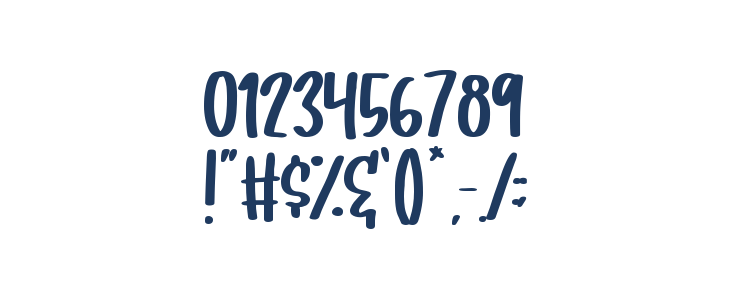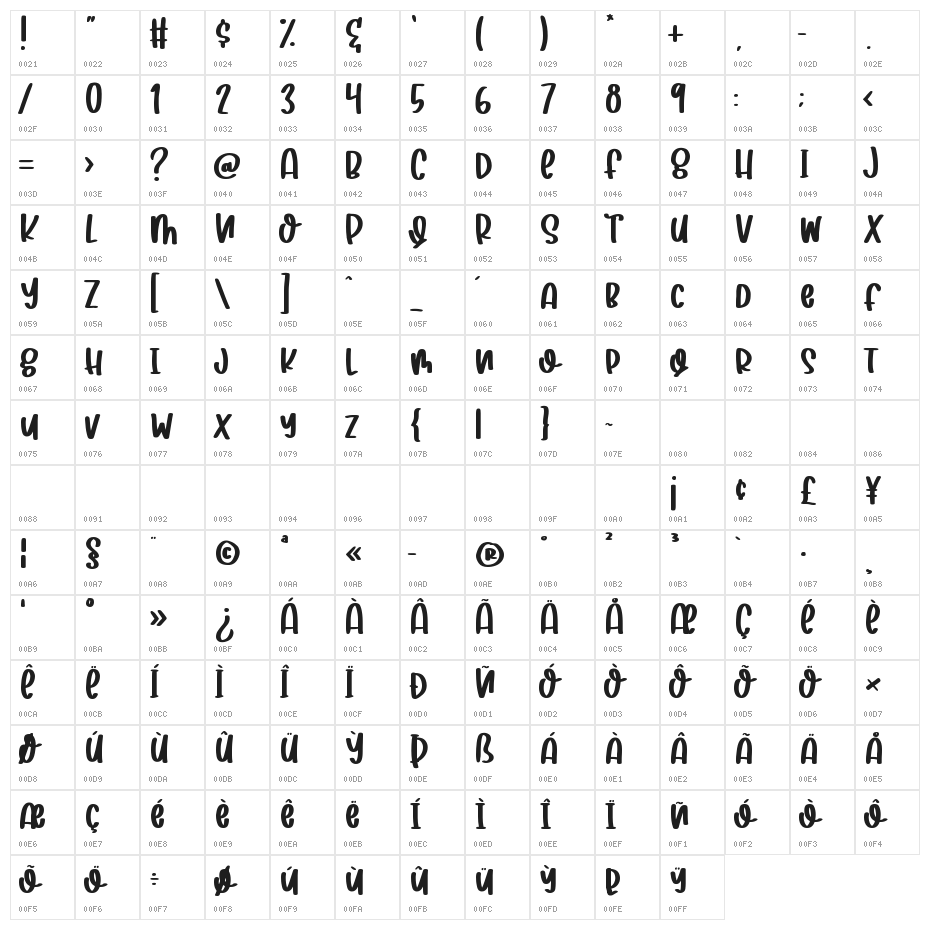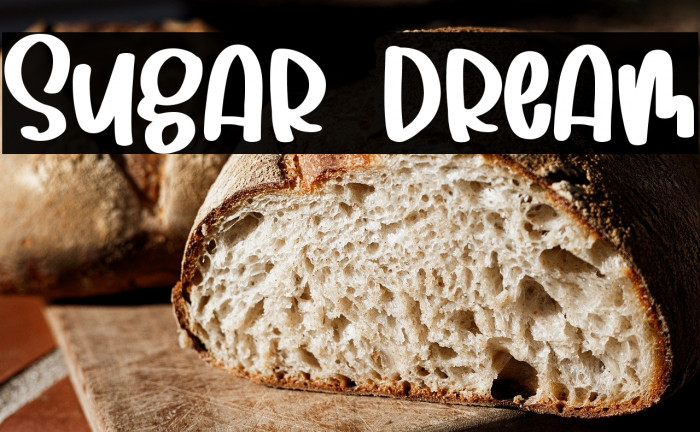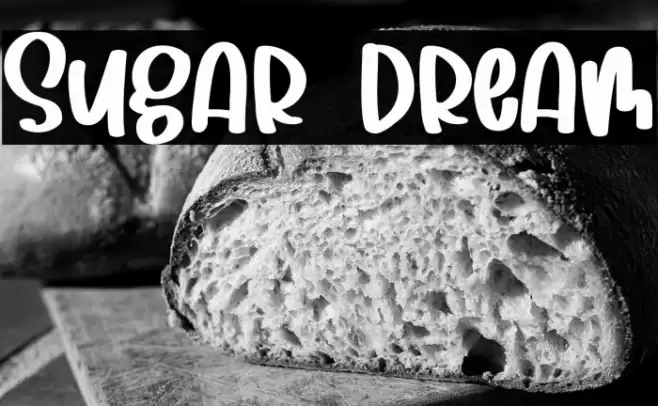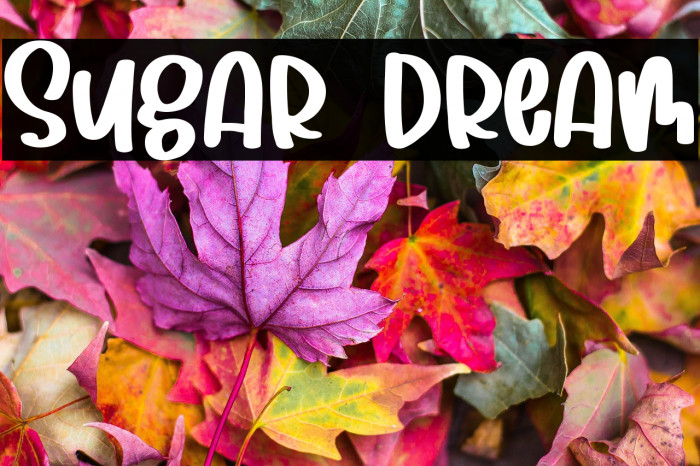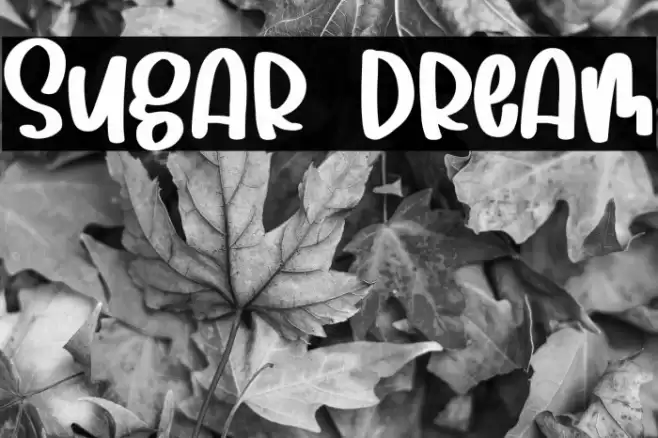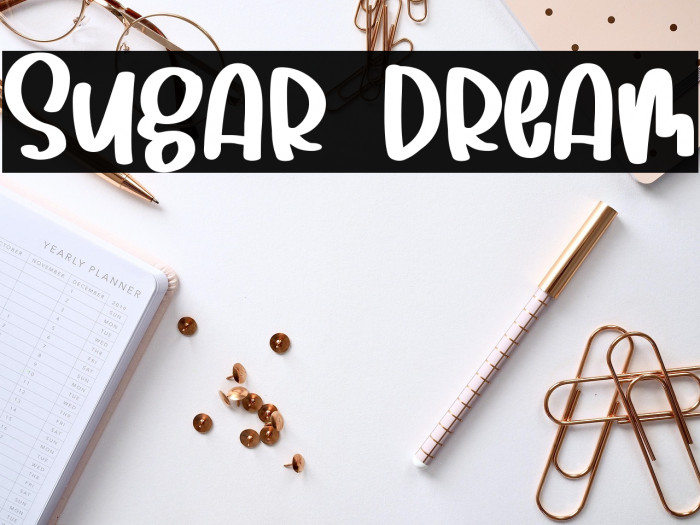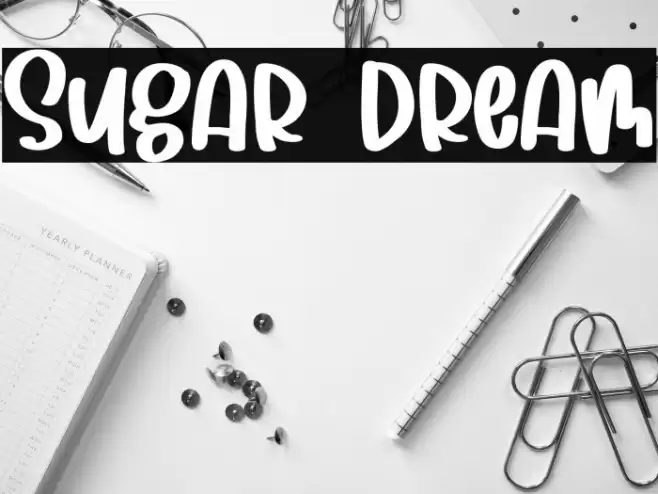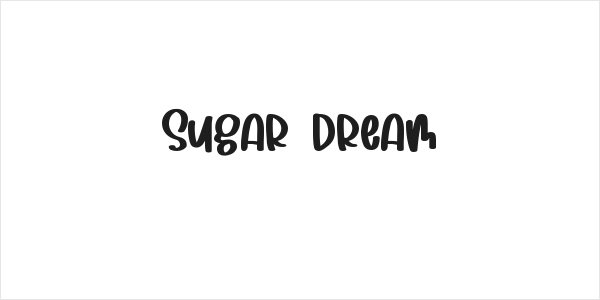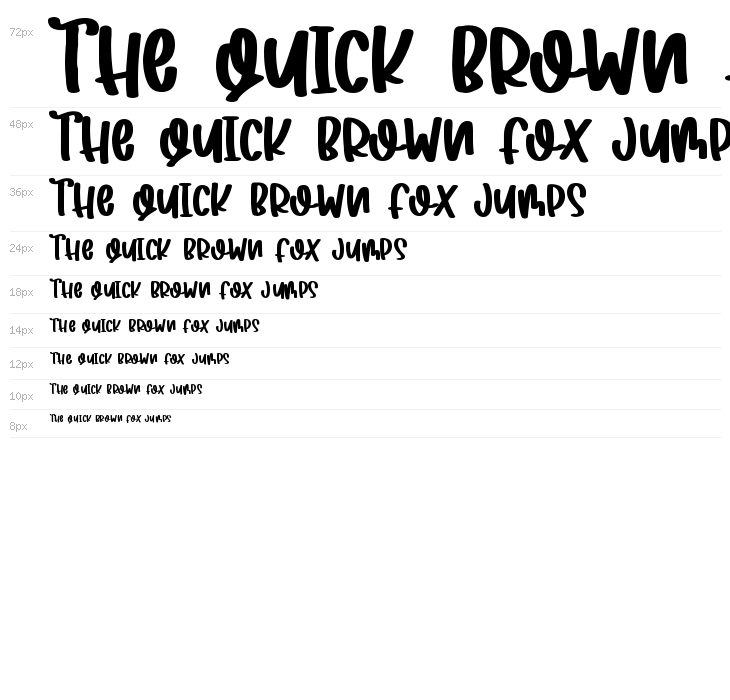
Sugar Dream Font
Sugar Dream Description
This playful and bold font exudes a whimsical charm with its rounded, thick strokes and smooth curves. The letters are designed with a hand-drawn aesthetic, giving it a friendly and approachable feel. The uppercase and lowercase letters maintain a consistent style, with a slight slant that adds a dynamic flow. The numbers and special characters are equally expressive, ensuring a cohesive look across all elements. Its bold presence makes it ideal for attention-grabbing designs, while the consistent stroke width provides a balanced and harmonious appearance.
| Proposed Projects | Perfect for children's books, playful branding, greeting cards, and social media graphics. |